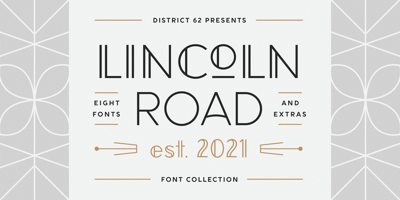
Lincoln Road
Lincoln Road font
Lincoln Road Font Family was designed by Megan Tamaccio, Aleksandar Veljasevic and published by District 62 Studio. Lincoln Road contains 9 styles and family package options. Introducing our new Lincoln Road Font Collection. Deco, but not too Deco.A Lincoln Road is a family of 9 fonts including 2 weights of Deco and 6 weights of a coordinating Sans and an Elements font that contains the frames and elements you see used in the previews. Each Deco weight has a corresponding Sans weight.Lincoln Road was inspired by art Deco styles, but is a modern interpretation – in other words – not too deco. It works for modern projects that need a hint of a decorative look and can also be used for a more vintage vibe. Check out the previews to see some of the ways you can use this family.